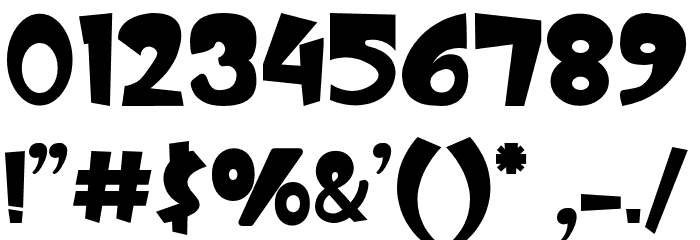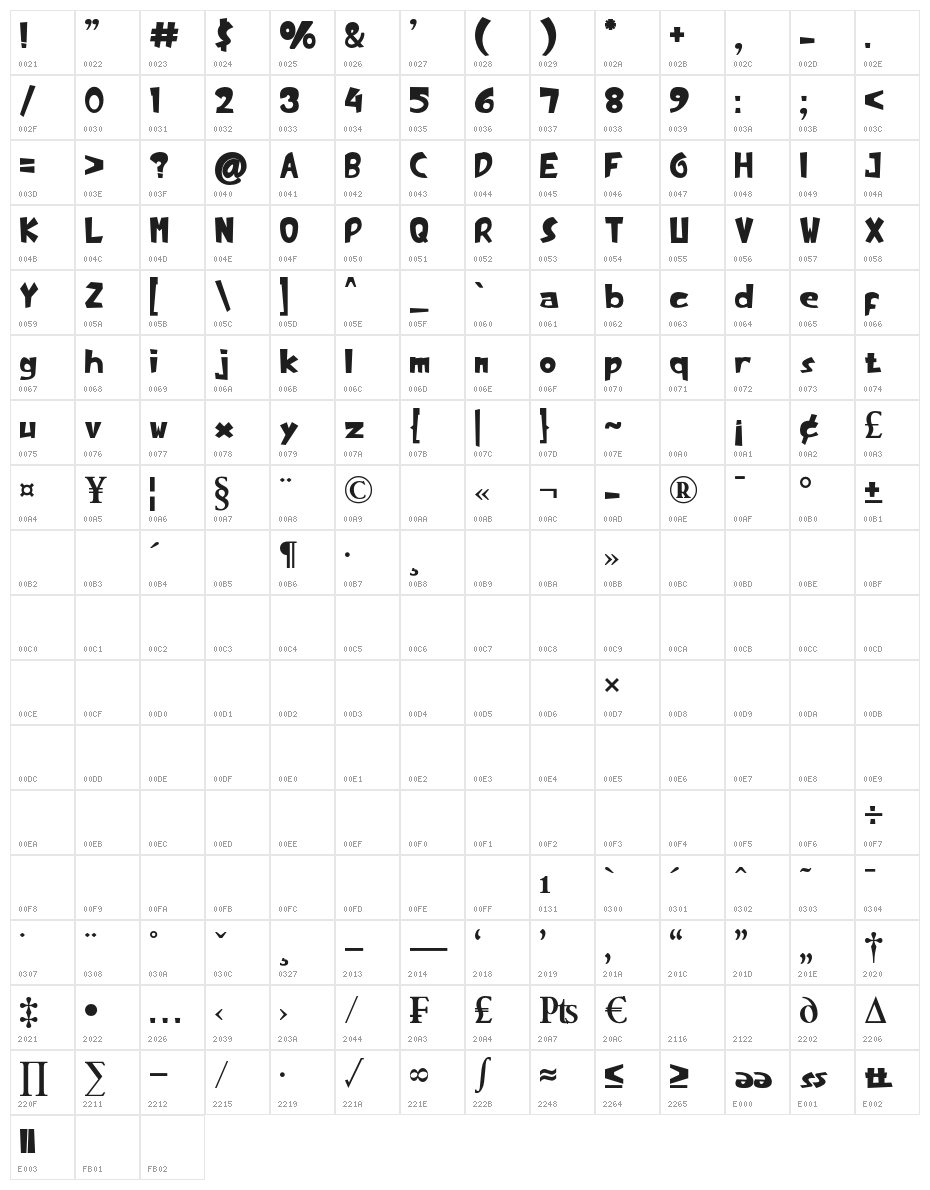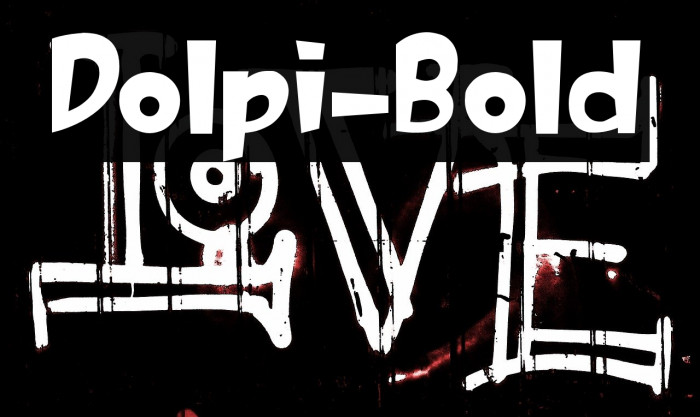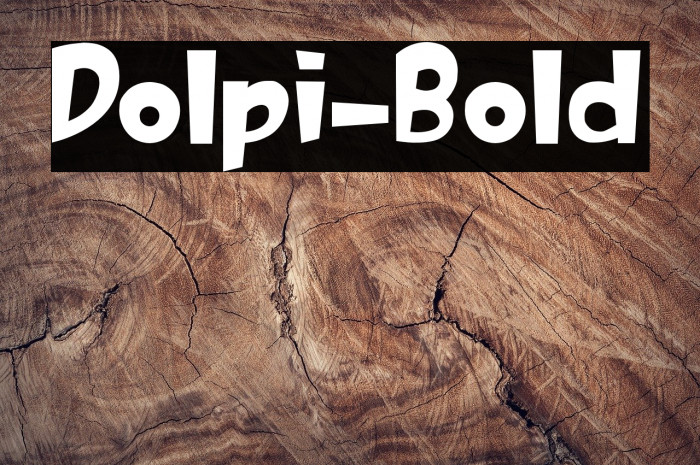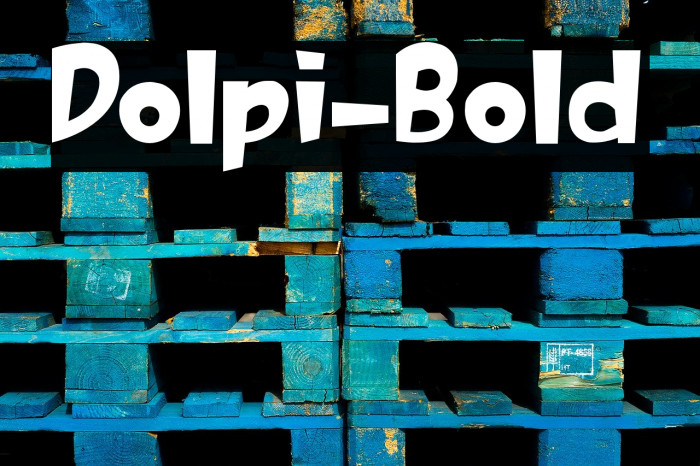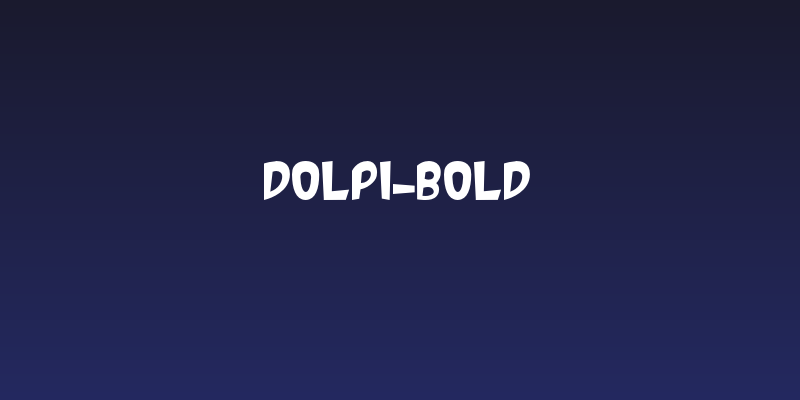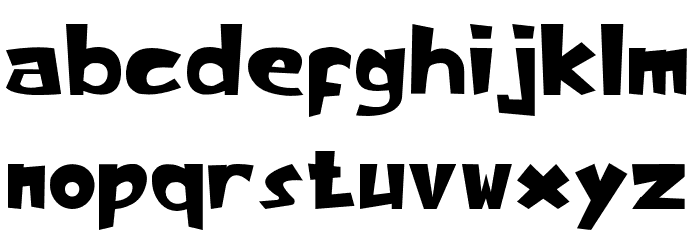
Dolpi-Bold Font
Dolpi-Bold Description
This font features a playful and bold design with exaggerated curves and angles, giving it a whimsical and dynamic appearance. The characters are thick and robust, with a slightly irregular shape that adds to its charm. The uppercase letters are particularly striking, with unique forms that stand out, while the lowercase letters maintain a consistent style. The numbers and special characters follow the same bold and quirky aesthetic, making this font suitable for eye-catching designs.
| Proposed Projects | Ideal for children's books, playful branding, posters, and creative projects that require a fun and bold typeface. |